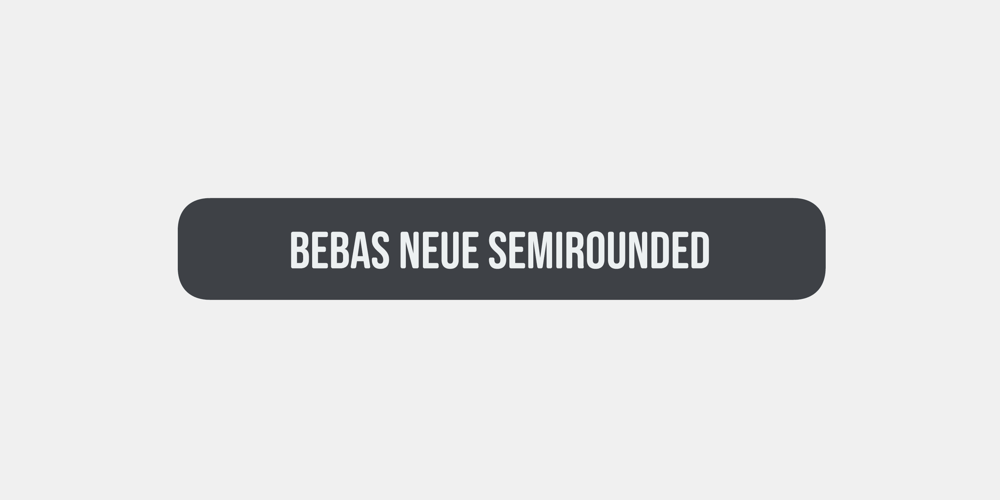
Bebas Neue Semi Rounded Font Family was designed by Ryoichi Tsunekawa and published by Dharma Type. Bebas Neue Semi Rounded contains 1 styles and family package options. Bebas Neue SemiRounded is the Bebas Neue with rounded corners. As you know, Bebas Neue is the most widely used free font recently. This semi-rounded version is the new style for more widely use. The basic theory and proportion are same as Bebas Neue but rounded shape gives a warm, soft and natural impression. A bit more rigid than Bebas Neue Rounded. Available at an affordable price.